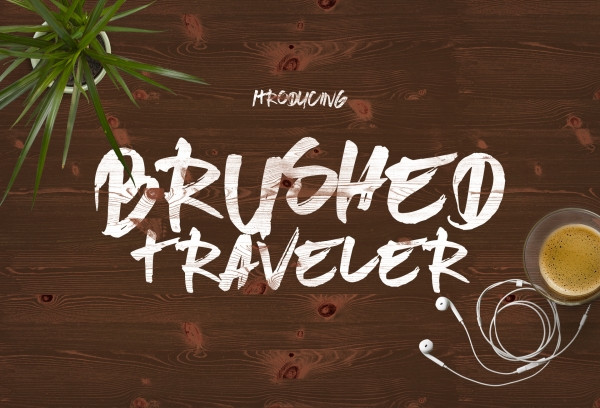
Brushed Traveler Font
Brushed Traveler Font is Handrawn Brush Font, Calligraphy style, Suitable for design, element design, wedding, event, t-shirt, logo, badges, sticker, and awesome work about summer.